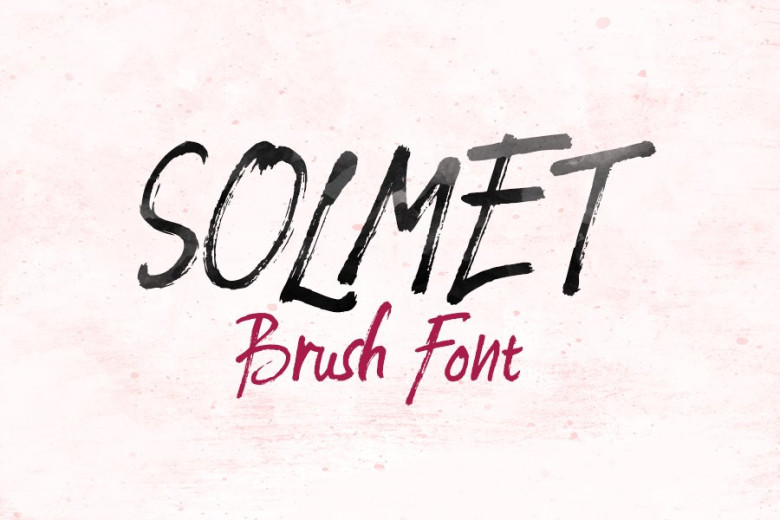
Solmet Marker Font
Solment is a natural hand-painted dry marker typeface which combine personal speed writing with high-detailed rough marker effects. Solment Marker Font is one of most perfectly imperfect free font that could make your message stand out and get noticed.